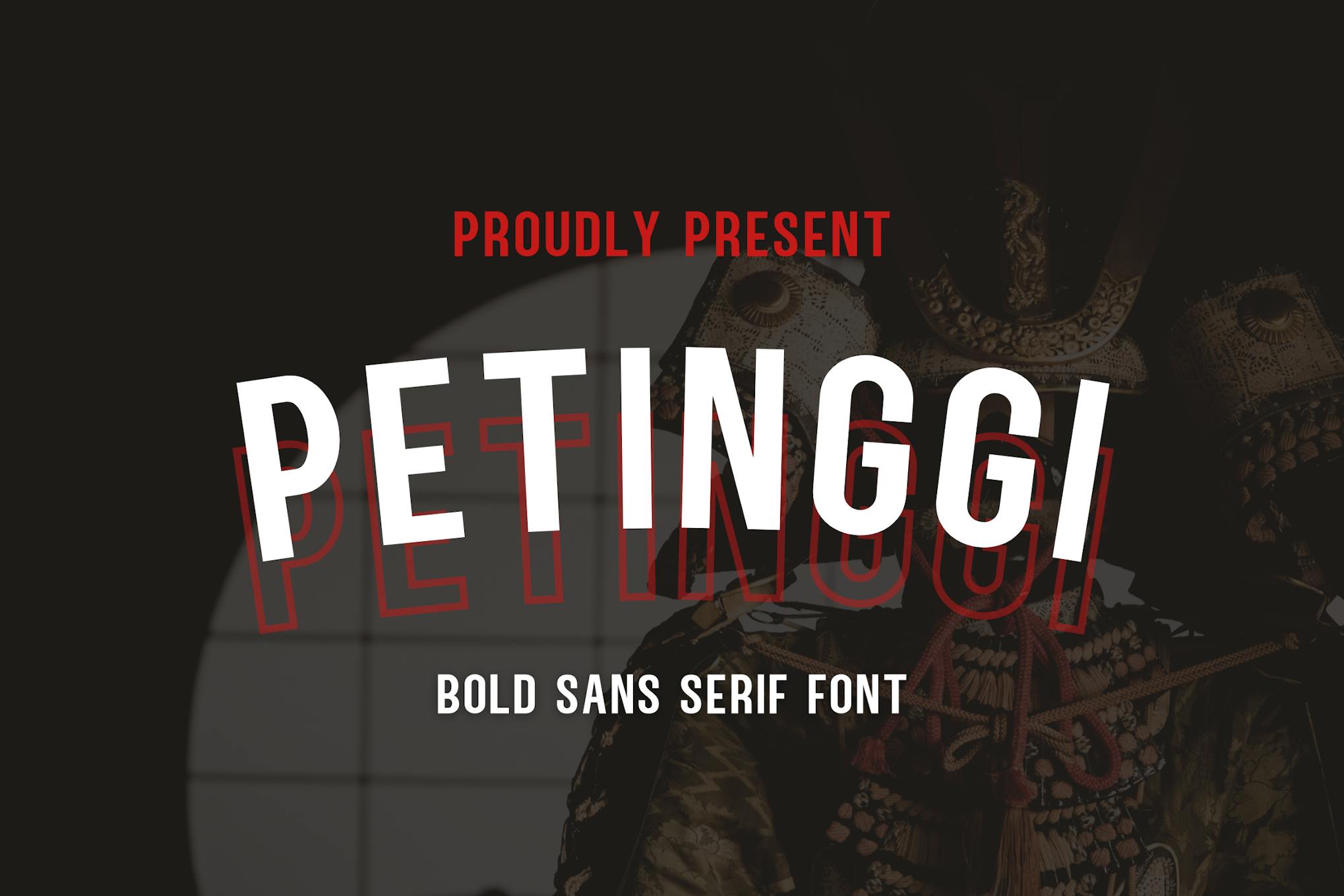
Petinggi | Bold Sans Serif Font
Perfect for headlines, branding, posters, packaging, website headers, and social media content.
The Petinggi | Bold Sans Serif Font excites designers with its strong, clean, and impactful letterforms that command attention and convey confidence.
The Petinggi | Bold Sans Serif Font Free Download is a powerful typeface designed to make your message stand out with clarity and authority. Its bold strokes and modern, geometric shapes make it ideal for projects that demand strength and professionalism. Whether you’re working on advertising, brand identity, or digital content, Petinggi ensures your design makes a memorable impact.
One of the standout features of Petinggi | Bold Sans Serif Font is its versatility in both print and digital formats. It maintains readability and style across various sizes and platforms, making it perfect for everything from large-scale posters to compact social media graphics.
In branding, Petinggi conveys strength, modernity, and trustworthiness. It pairs well with bold color schemes, minimalistic layouts, and sharp imagery, helping brands communicate a confident and forward-thinking identity.
For digital projects, this font enhances website titles, app interfaces, social media posts, and marketing materials with its clean and bold aesthetic. Its strong presence ensures your digital content stands out in crowded spaces.